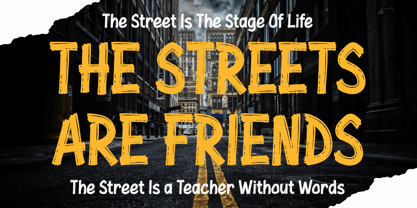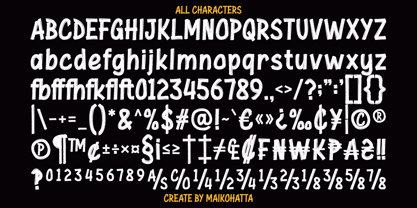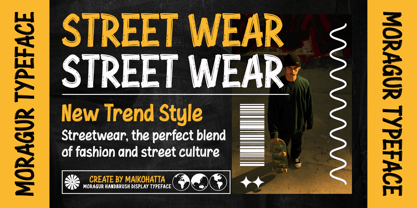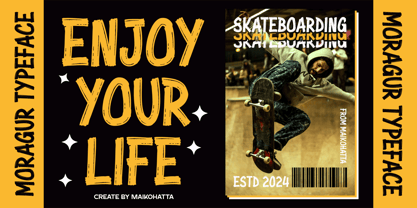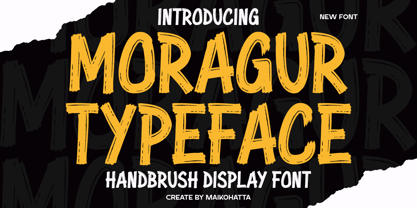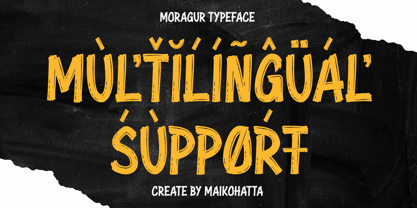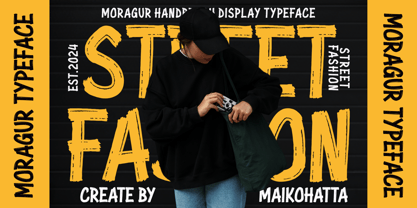
Moragur
by Maikohatta
The Moragur Font Family was designed by Gilang Ternadho and published by Maikohatta. Moragur contains 1 styles. More about this family
Introducing our new product Moragur - Handbrush Display Font
This font features a combination of boldness and readability, merging the expressive brush handwriting style with contemporary design elements. It creates a fresh, dynamic look that aligns seamlessly with modern design aesthetics and is frequently employed in logo design, marketing materials, signage, and various projects requiring a contemporary and expressive touch. Its design excellence makes it a popular choice for conveying messages with a dynamic and engaging style.
Designers: Gilang Ternadho
Foundry: Maikohatta